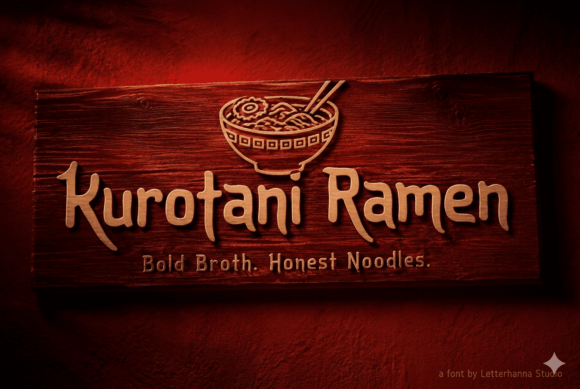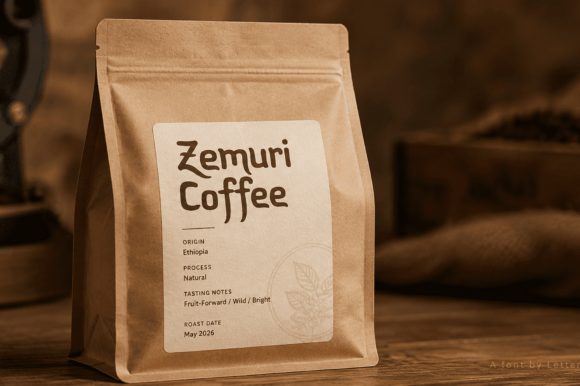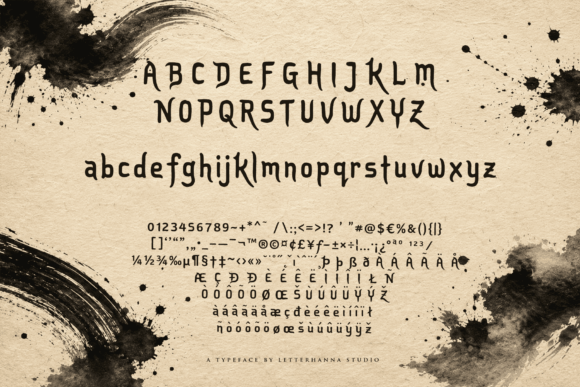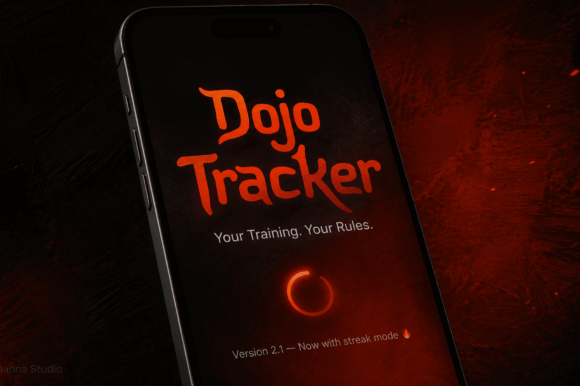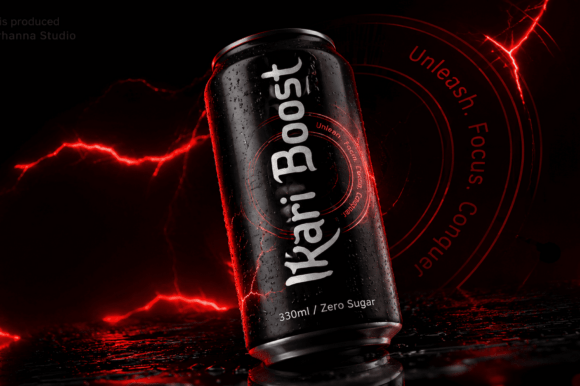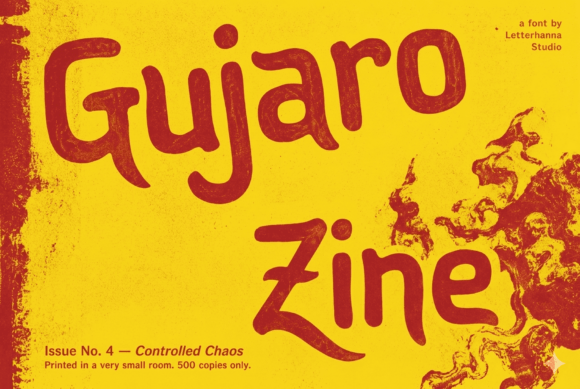
Breaking Free from Bland Typography
We’ve all been there – staring at a blank canvas, feeling uninspired by the same old fonts that fail to capture the essence of our design. The frustration is palpable, but the solution is simpler than you think. Enter the game-changer that designers have been waiting for – a font that’s not just a pretty face, but a powerful statement. Introducing Baruzen Karma, a typeface that embodies the raw energy of ancient Japanese brush tradition and modern street culture.
This isn’t just a font; it’s a bold declaration that demands attention. With thick, rounded strokes and subtle tapering terminals, Baruzen Karma Font is the perfect tool for designers who refuse to blend in. It’s the difference between a forgotten logo and a brand identity that refuses to be ignored.
Whether you’re designing a title sequence, a streetwear label, or a martial arts brand, the right font can make all the difference. Baruzen Karma Font is built to elevate your concept into something unforgettable.
Designer Review: Baruzen Karma Font
Overall, I’m impressed with the unique design of the Baruzen Karma Font. The font’s mix of traditional and modern elements works well to create a visually appealing typeface. ✨ I particularly enjoy the way the font’s curves and lines flow together, making it perfect for use in titles and headings.
One of the standout features of the Baruzen Karma Font is its ability to be customized and adapted to different design contexts. ✨ The font’s flexibility makes it a great choice for designers who want to add a touch of personality to their projects.
While the Baruzen Karma Font has many strengths, there are a few areas where it falls short.
- ⚠️ Limited language support: The font’s language support is not as extensive as some other fonts, which may limit its use in certain projects.
- ⚠️ Not ideal for body text: The font’s unique design may not be the best choice for large blocks of body text, as it can be difficult to read.
Overall, I think the Baruzen Karma Font is a great addition to any designer’s toolkit. While it has some limitations, its unique design and customization options make it a valuable resource for designers who want to add a touch of personality to their projects.
Baruzen Karma Font is a versatile font that can be used in a variety of designs.
For best results, use it in combination with other fonts that have a similar style and feel.
Experiment with different font sizes and styles to create visual interest and emphasis.
Baruzen Karma Font is suitable for a wide range of designs, including:
• Blog posts and articles
• Social media graphics
• Print materials such as business cards and brochures
• Digital presentations and reports